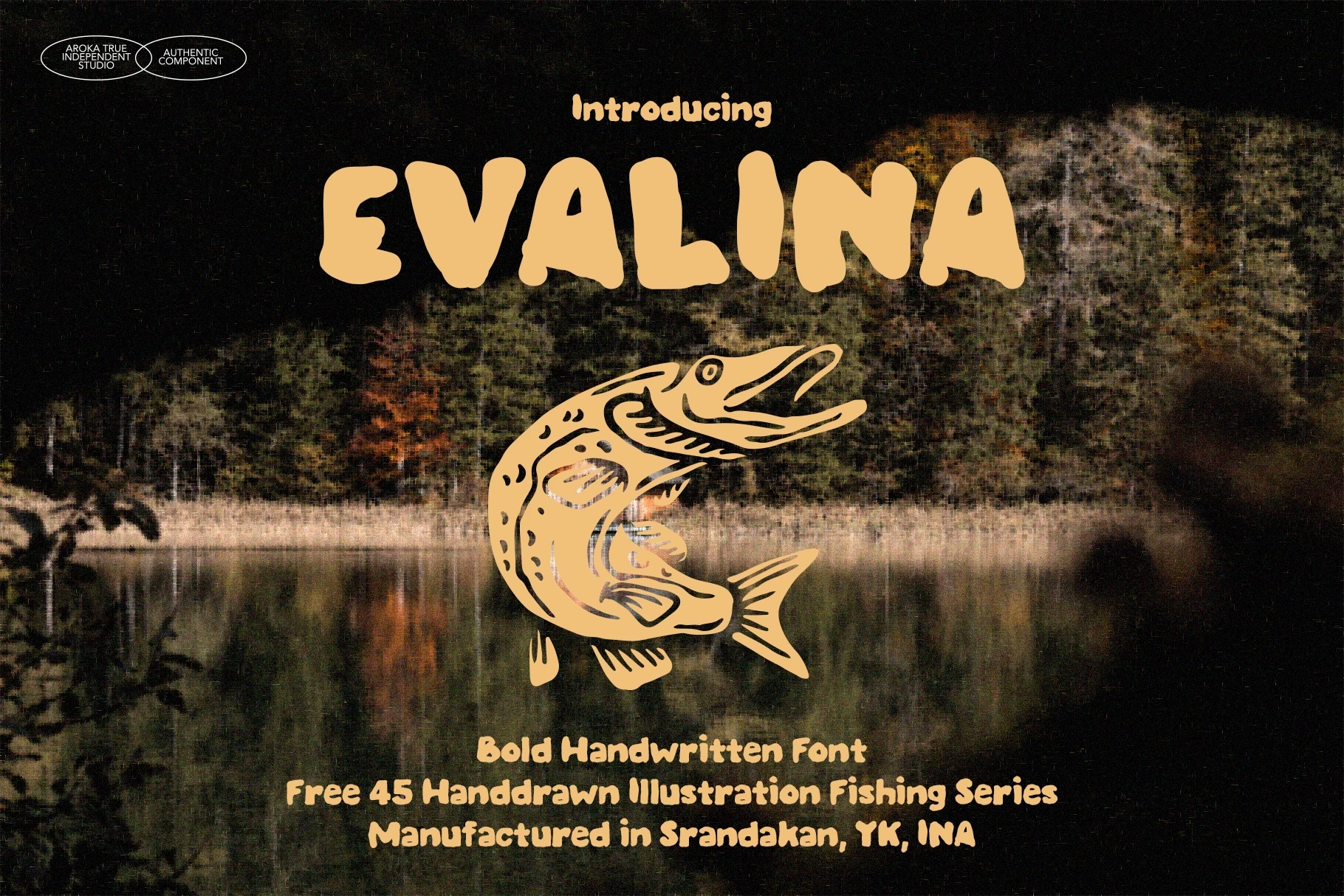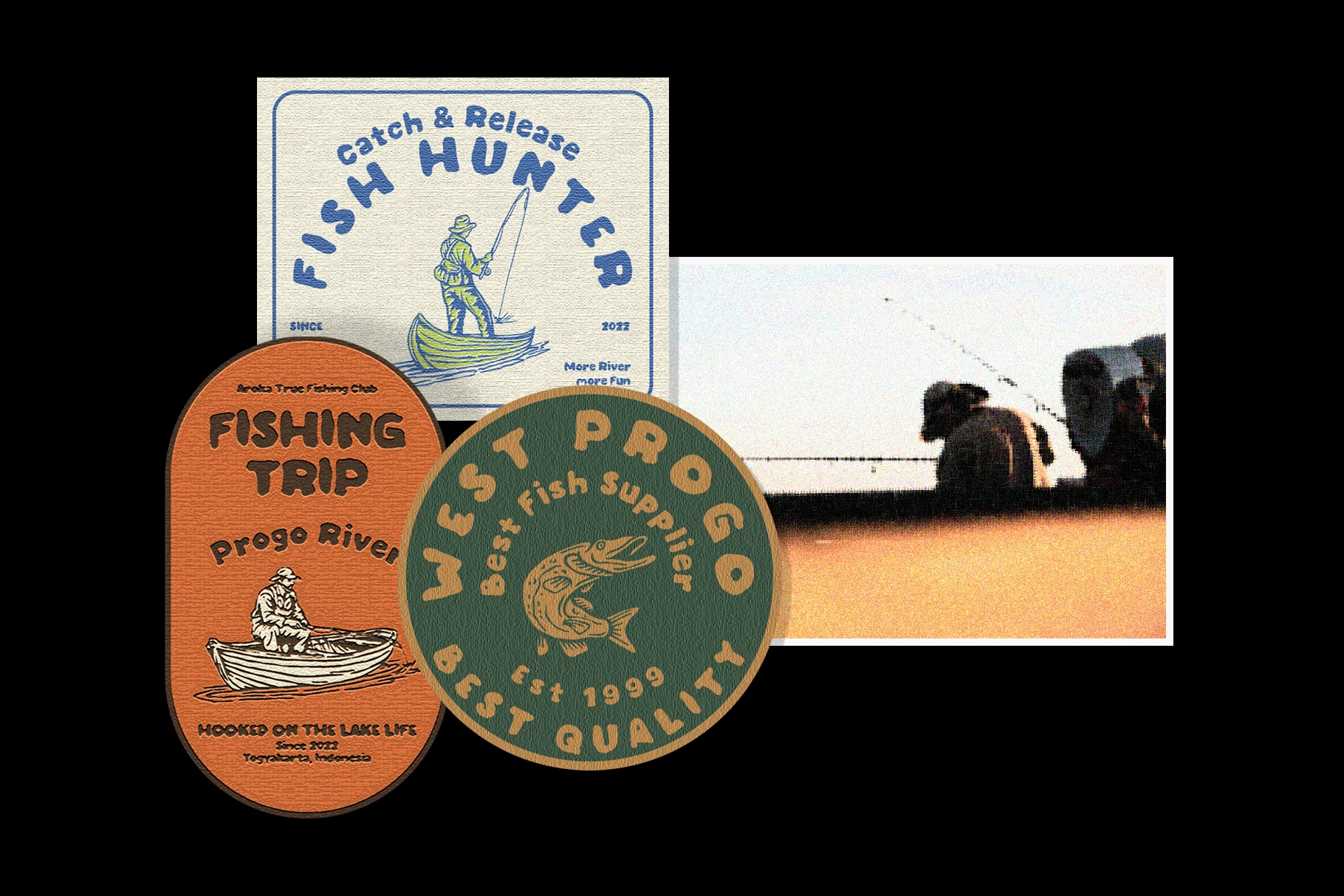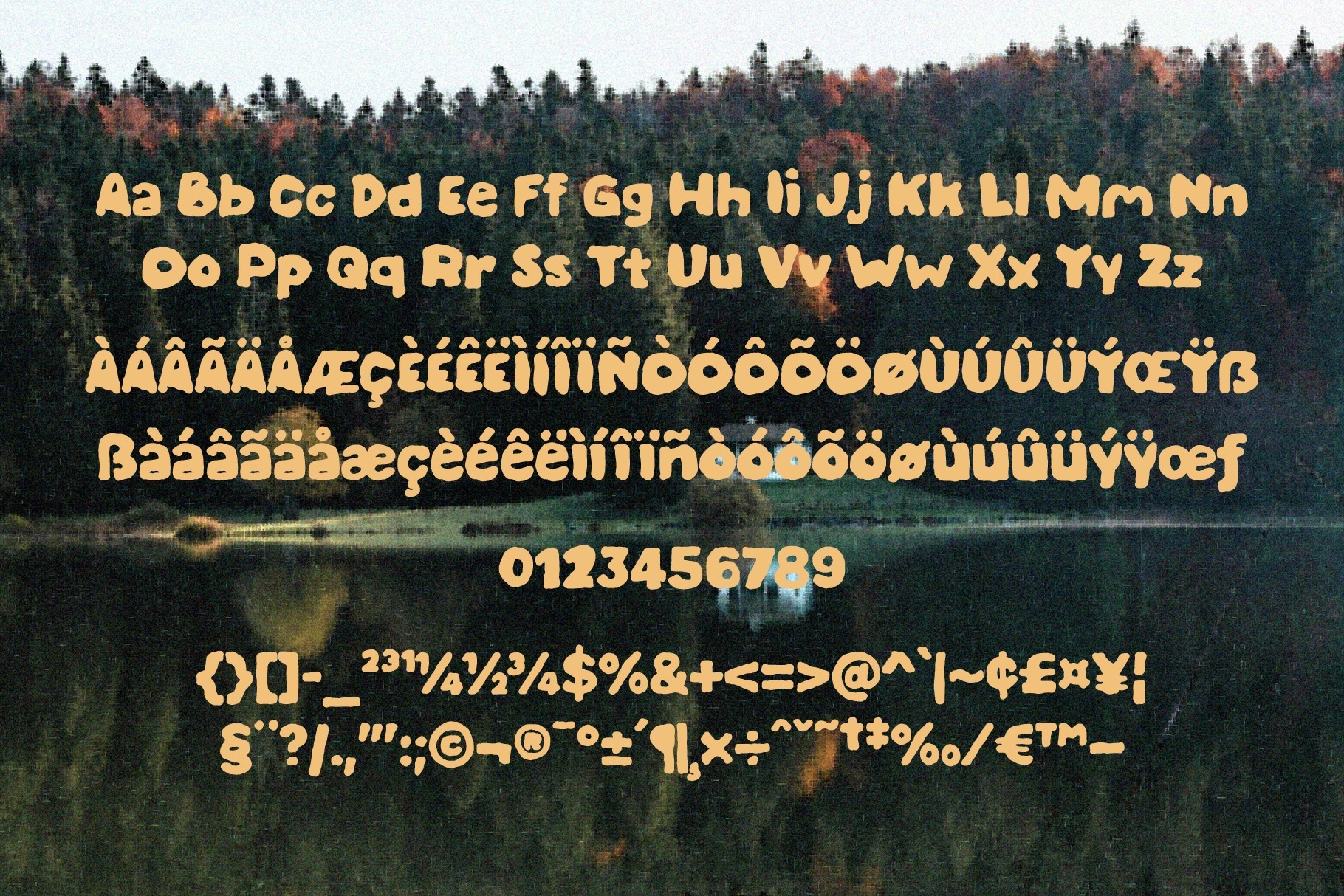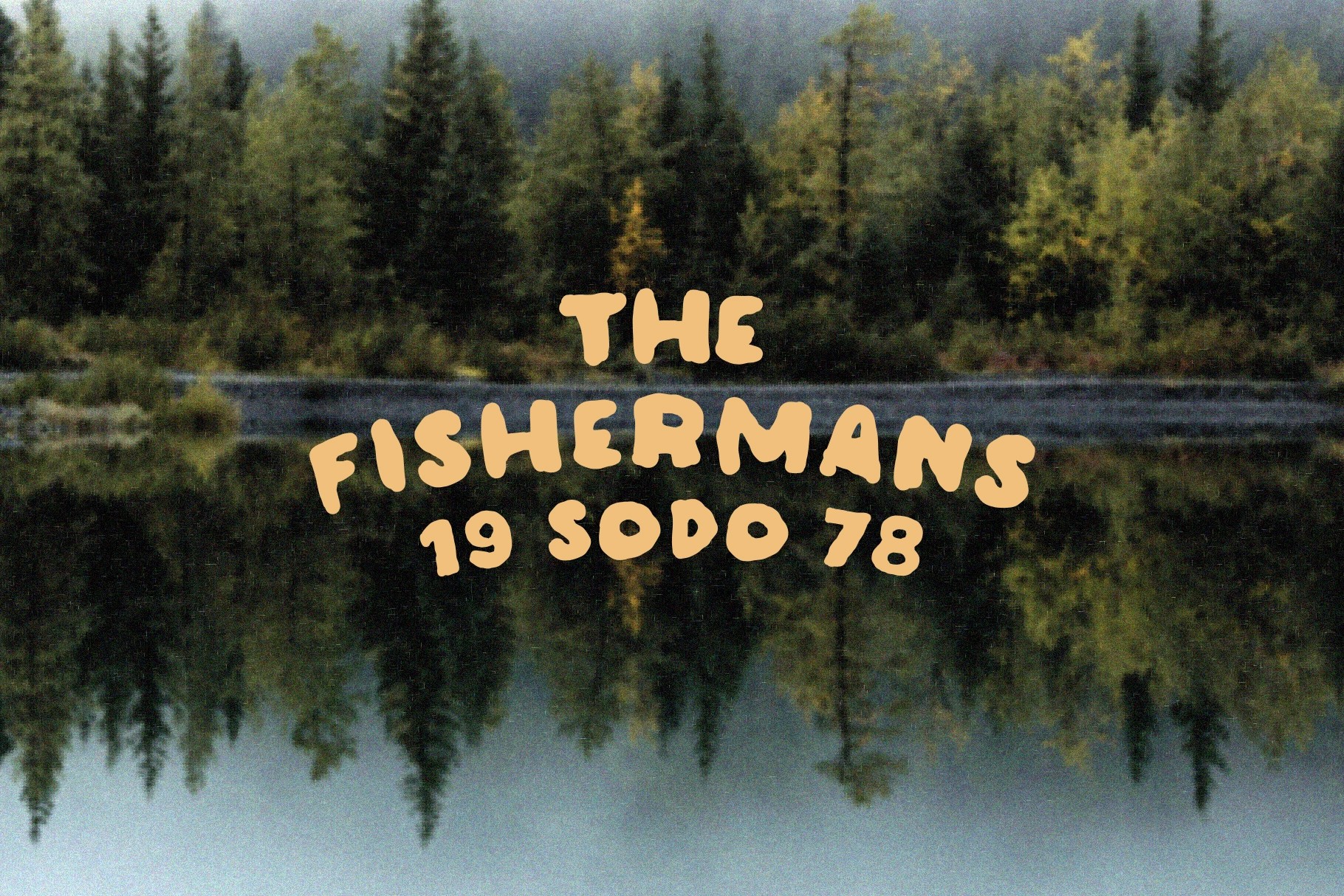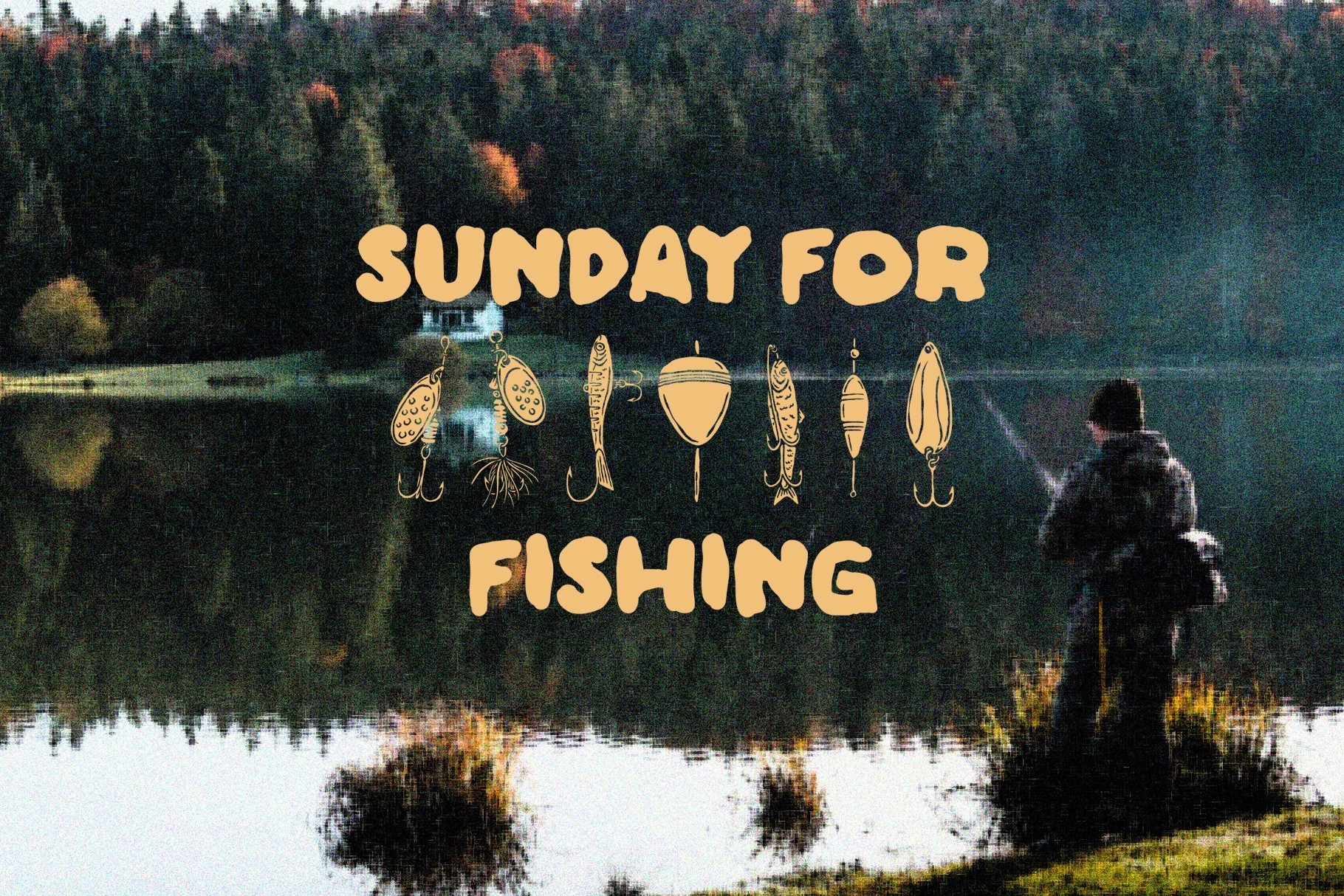
Bold Hand Drawn Display Font - Evalina
EVALINA
Bold Hand Drawn Display Font - Evalina is a playful and expressive typeface inspired by outdoor life and fishing culture. Featuring chunky, organic letterforms with a handcrafted feel, it brings warmth and personality to your designs, making it perfect for posters, branding, packaging, and casual creative projects.
Influenced by a fishing-inspired environment, this font comes with a unique set of hand-drawn illustrations that enhance its storytelling charm. The natural, slightly imperfect shapes create an authentic handmade look while remaining highly readable and versatile across different design applications.